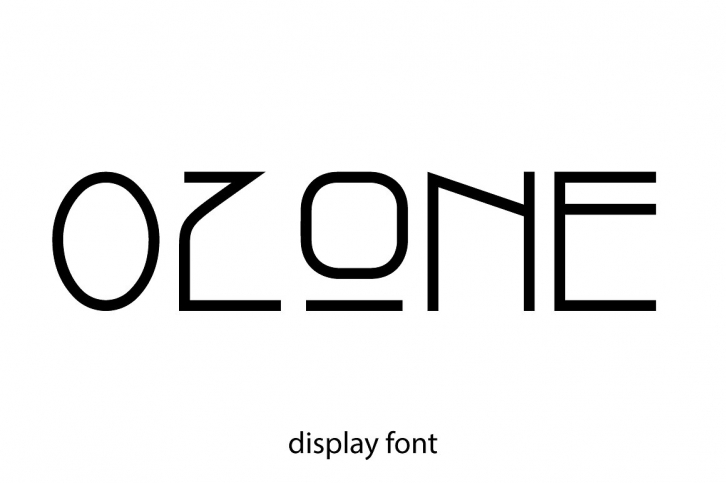
Display font OZone - fresh and creative font family with 4 different types - thin, regular, bold and black. All letters in caps - perfect for headlines, banners, posters, etc.
This is display font - only simple letters (in high register) and their decorative versions (typing small register), and numbers, no punctuations.